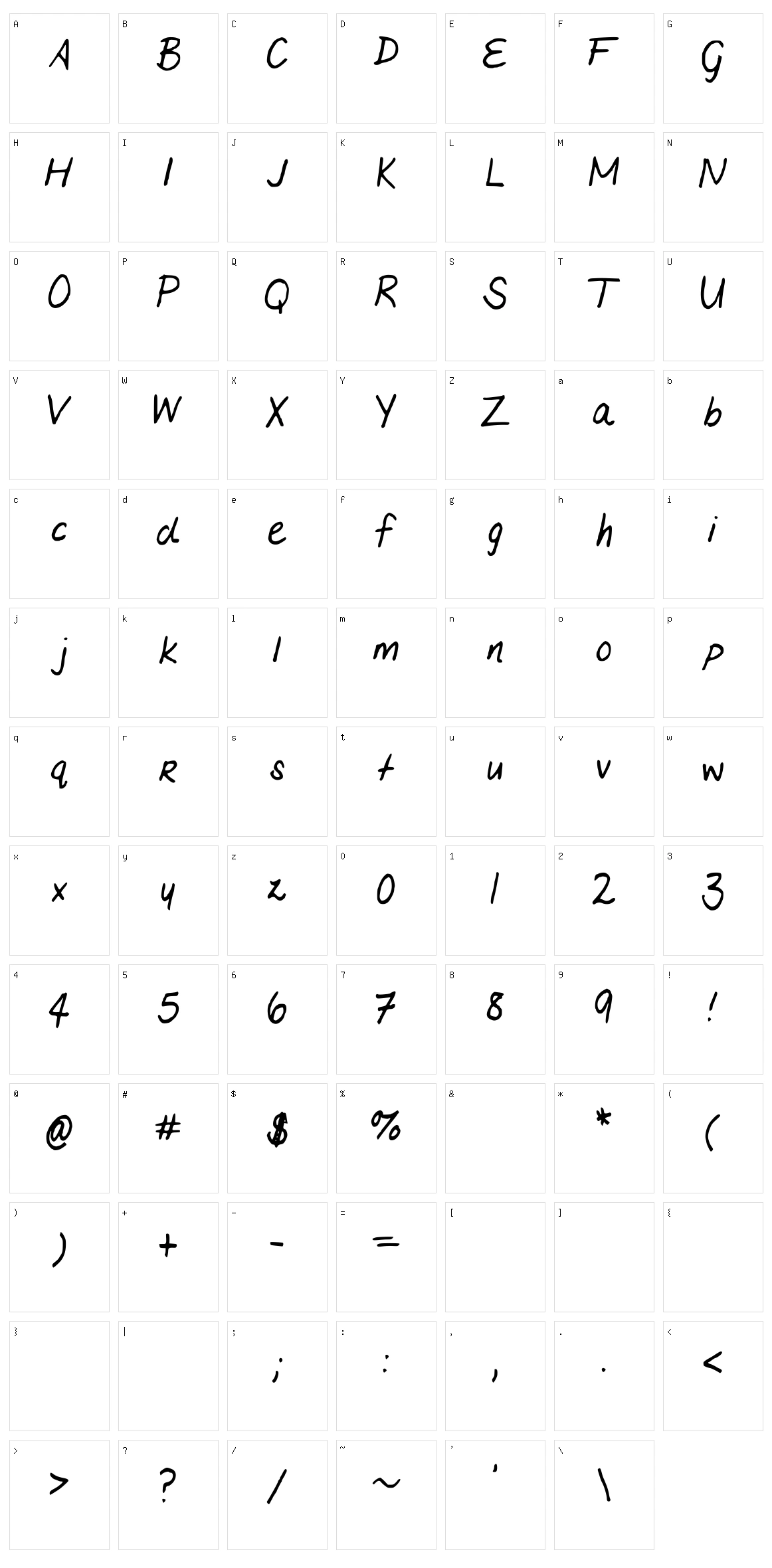
The free font Marias Handwriting is carefully designed by Maria Rose, showcasing a thoughtful balance of creativity and usability and falls under the Script font style. When you download the ZIP file, it contains only 13.69 KB of font files, making it lightweight and quick to download. Please review the license details below to understand permitted usage and distribution rights. If license information is not available, we recommend using this font for personal projects only or contacting the author directly for commercial usage permissions.